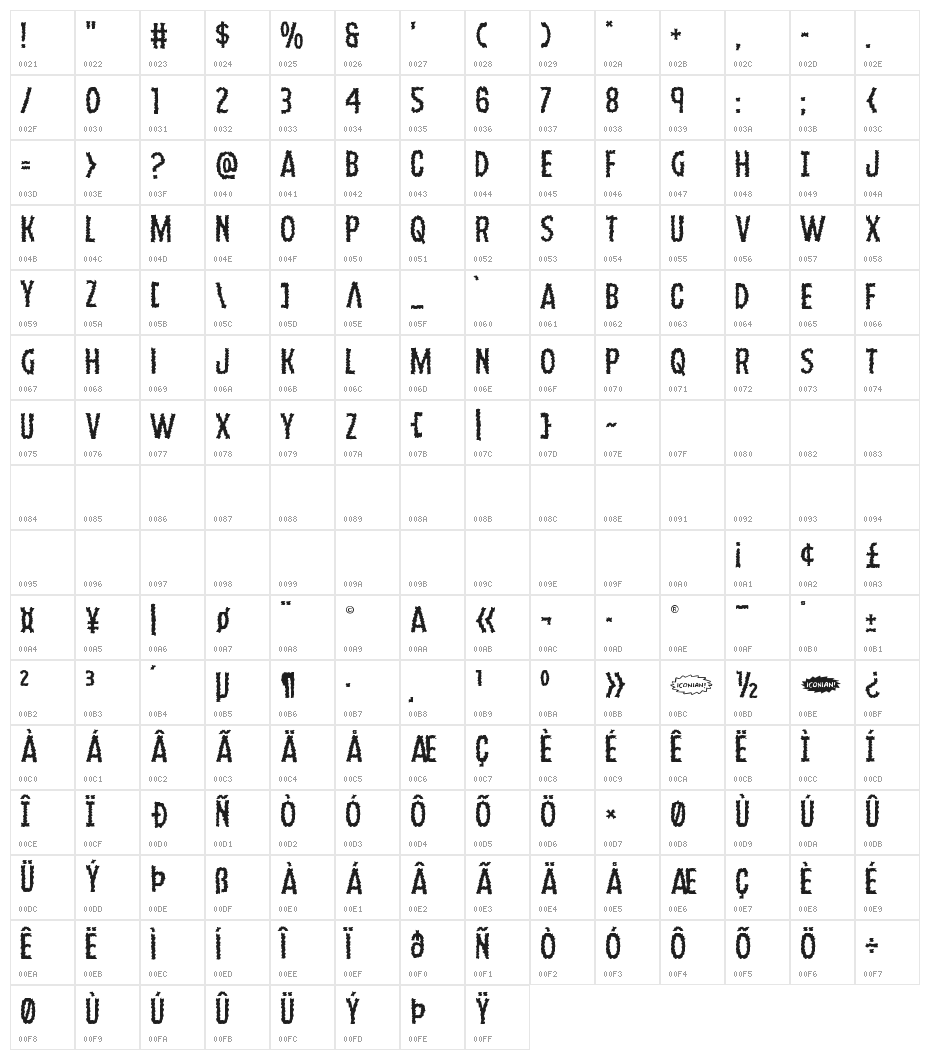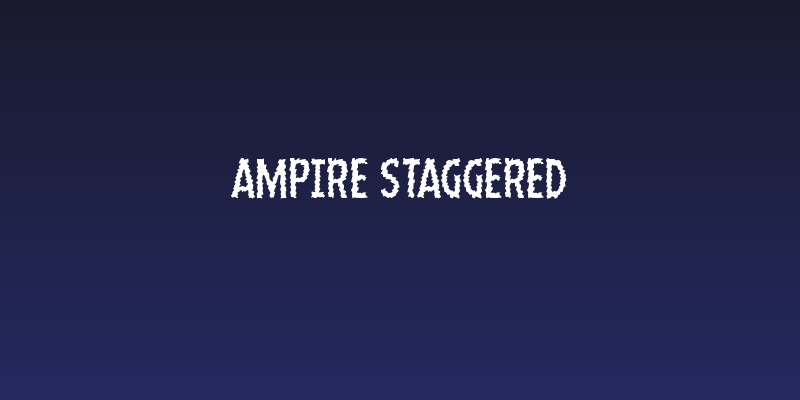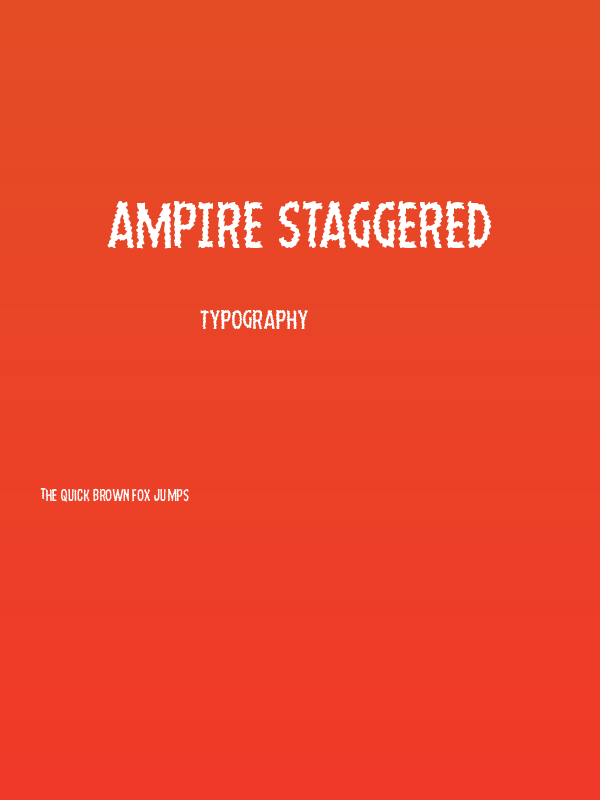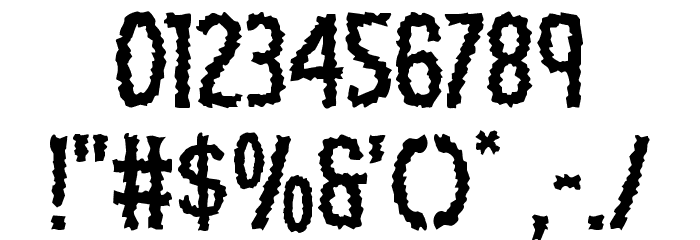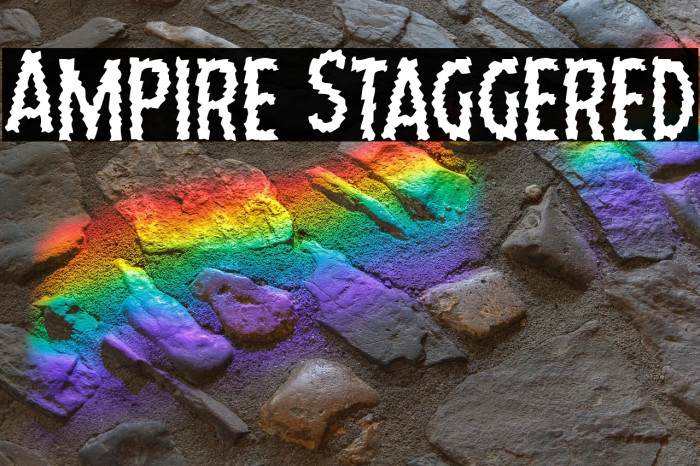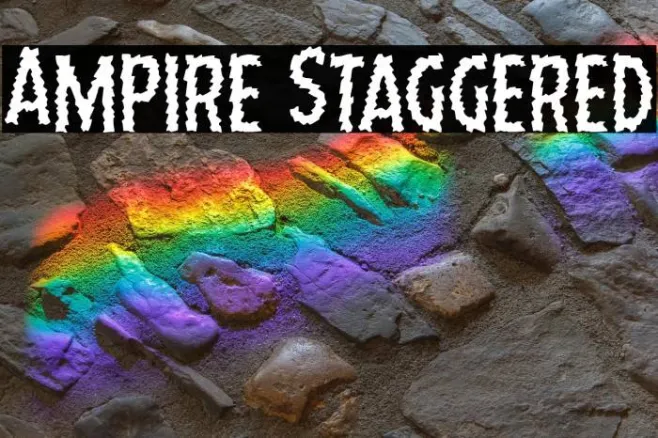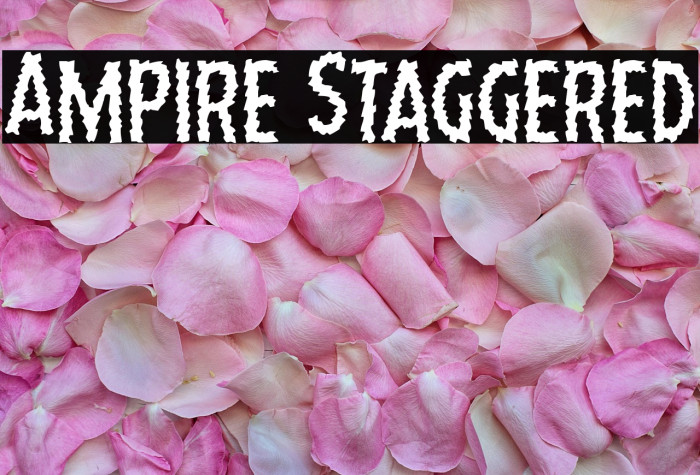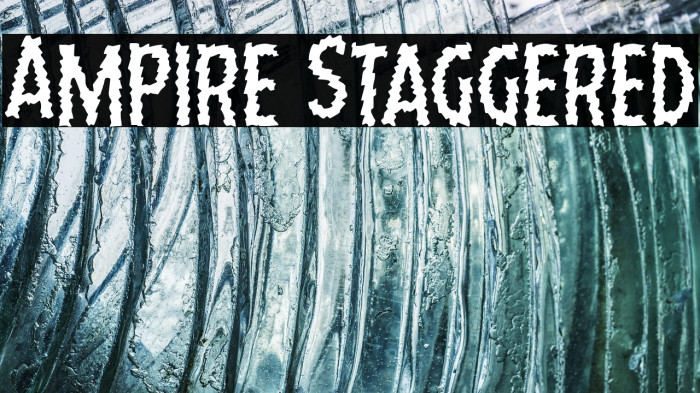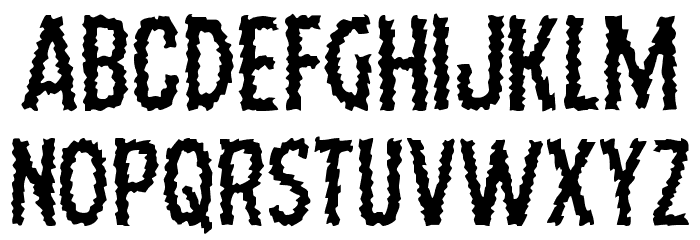
Ampire Staggered Font
Ampire Staggered Description
This font features a jagged, zigzag pattern that gives it a dynamic and edgy appearance. The characters are bold and have a unique, staggered outline that creates a sense of movement and energy. The uppercase and lowercase letters maintain a consistent style, with sharp angles and a slightly irregular form that adds to its distinctive look. Numbers and special characters follow the same design principles, ensuring a cohesive visual identity across all glyphs. This font is ideal for projects that require a bold statement or a touch of unconventional flair.
| Proposed Projects | Ideal for posters, album covers, or any design needing a bold, edgy look. |